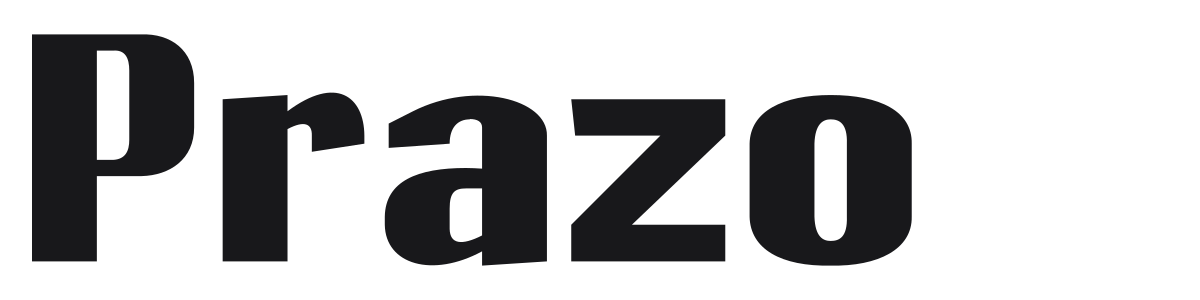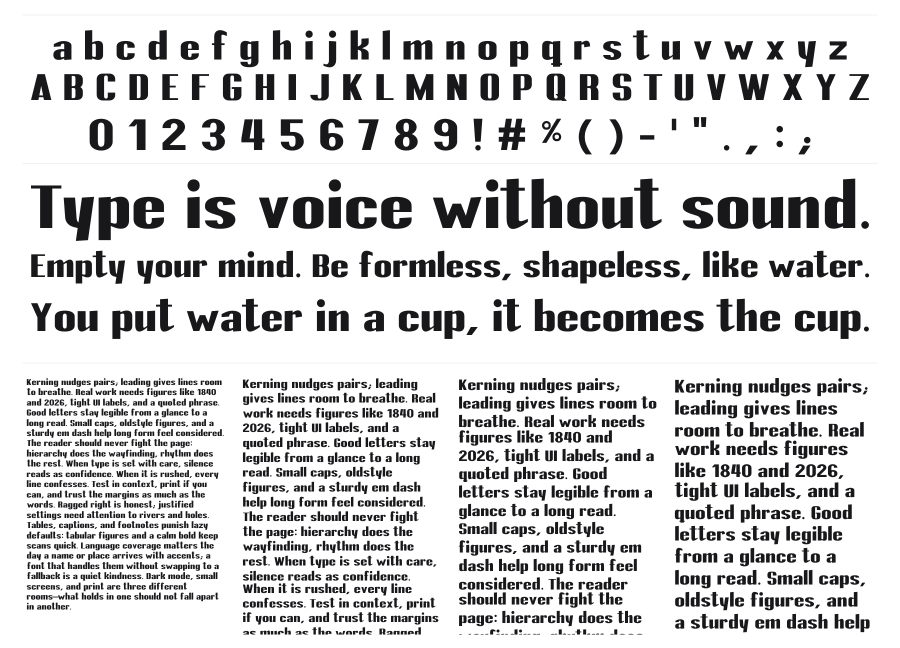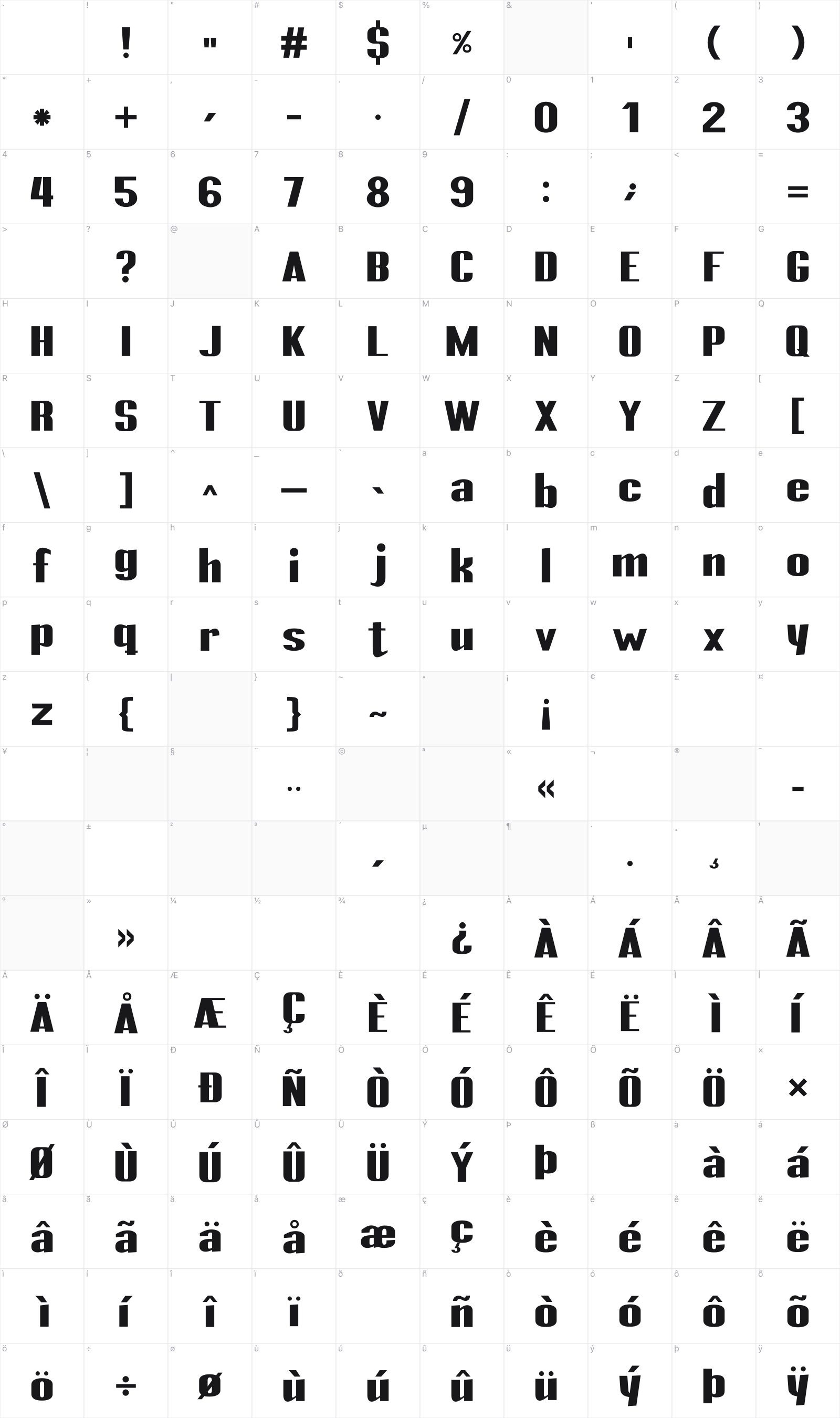
Prazo
Prazo is a heavy humanist sans with bold, condensed proportions and subtle stroke contrast that sets it apart from a blunt grotesque. The slightly flared terminals and calligraphic undertones give the weight a warm edge rather than a cold mechanical feel. Built for short texts and titles, it packs real visual punch at large sizes.